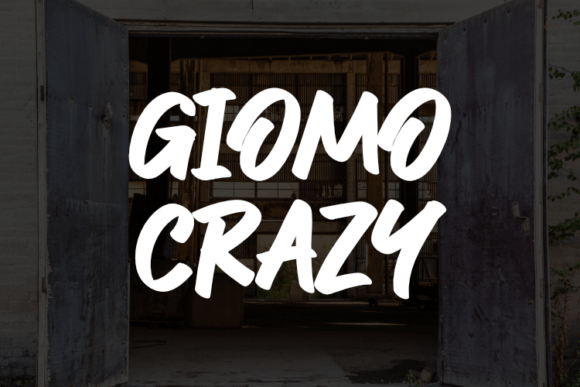
Have you ever been in the midst of a creative project, staring at a blank canvas, trying to find the perfect font to bring your design to life? The frustration is real, but what if I told you that there’s a font that can add an edge to your designs, giving them a dynamic personality that captivates audiences? Introducing the Giomo Crazy Font, a versatile and quirky font designed specifically for fashion-forward designers.
This font is perfect for apparel design, including t-shirts, sweatshirts, caps, and accessories. Its unique charm and limitless design possibilities make it a valuable asset for any designer. With the Giomo Crazy Font, you can take your designs to the next level, making it a must-have for any creative project.
Giomo Crazy Font Key Features
- Unique Characteristics: This font features a playful, hand-drawn style with exaggerated letterforms and organic shapes, making it ideal for adding a touch of whimsy and personality to designs.
- Kerning and Ligatures: Giomo Crazy Font includes advanced kerning and ligature pairs, ensuring smooth and even spacing between letters for a professional-looking finish.
Giomo Crazy Font Review
First off, let’s talk about what works well with the Giomo Crazy Font ✨. I love the energy and playfulness it brings to any design project. The font’s unique, hand-drawn style adds a touch of whimsy and can be used to create eye-catching headlines or titles. The bold weights also make it perfect for creating a sense of drama and emphasis.
However, there are some limitations to consider ⚠️. For one, the font’s irregularities can sometimes make it difficult to read, especially in smaller sizes. Additionally, the font’s design may not be suitable for body text or large blocks of text, as it can be overwhelming and tiring to the eyes. Finally, some users may find the font’s style to be too playful or childish, which may not be suitable for all design projects.
Overall, I think the Giomo Crazy Font is a great choice for designers who want to add a touch of personality and flair to their projects. Just be sure to use it judiciously and in the right context.
Giomo Crazy Font is ideal for creating eye-catching headlines, titles, and logos. It’s also great for adding a touch of whimsy and personality to your designs.